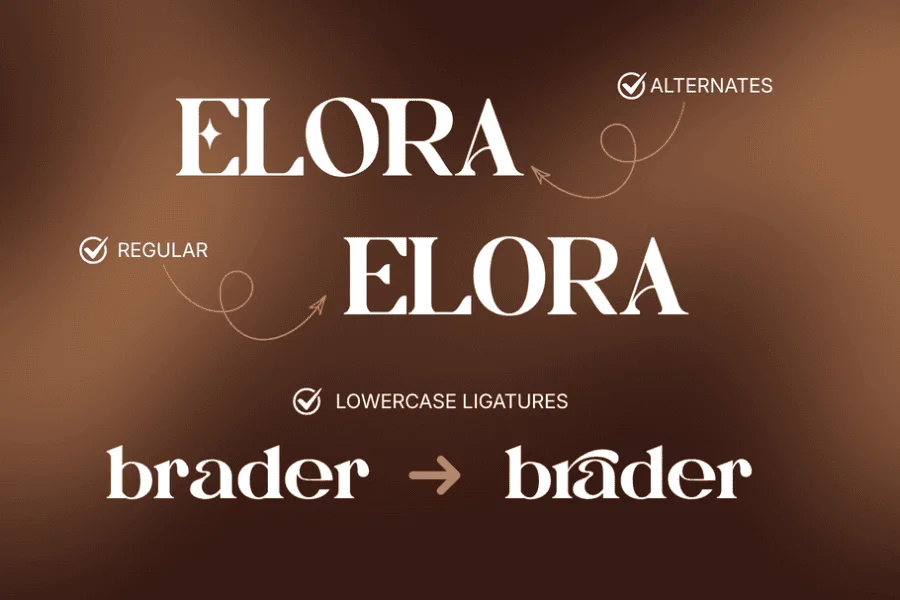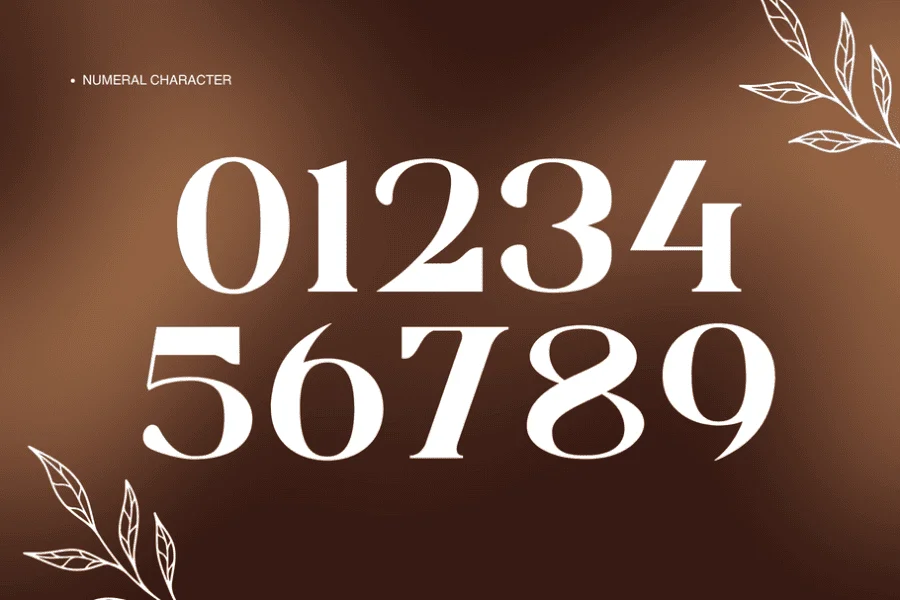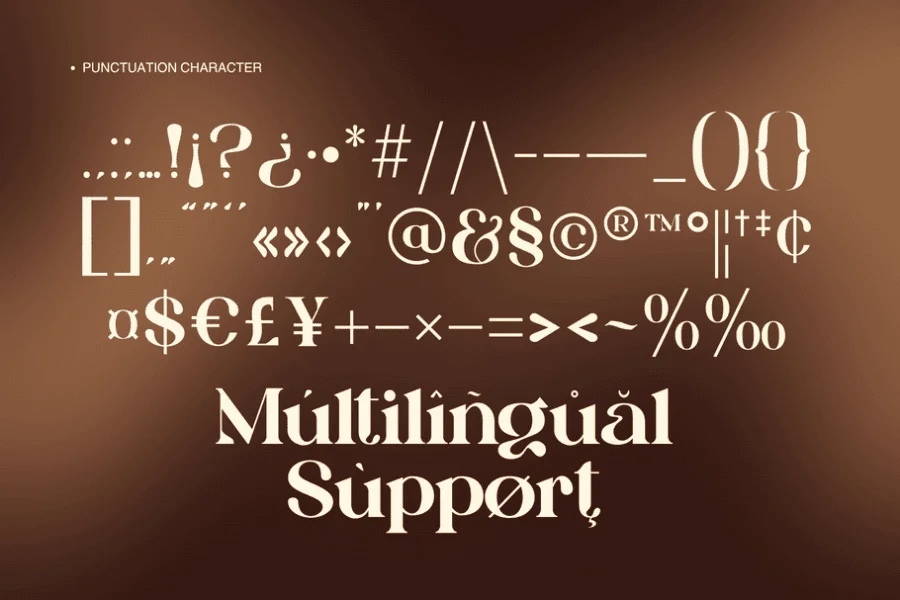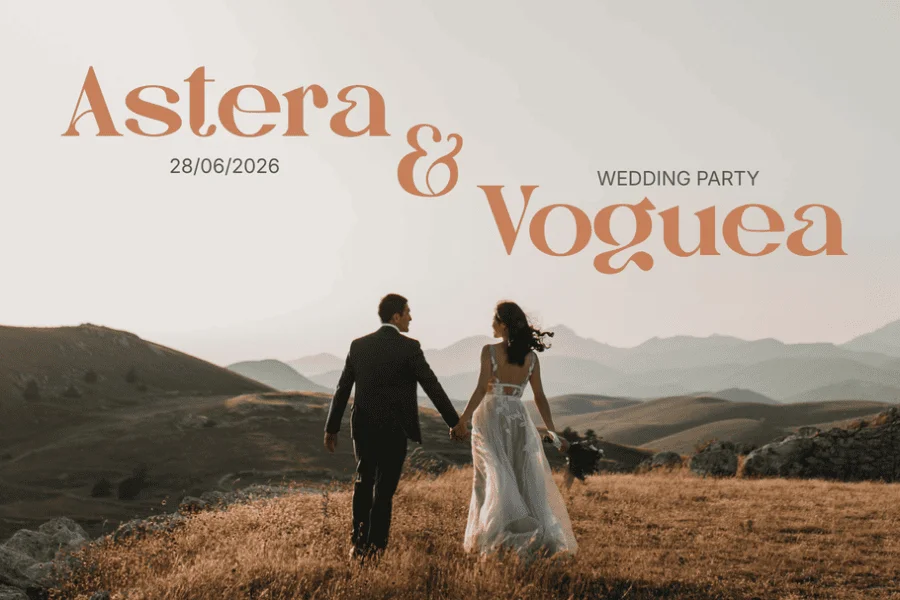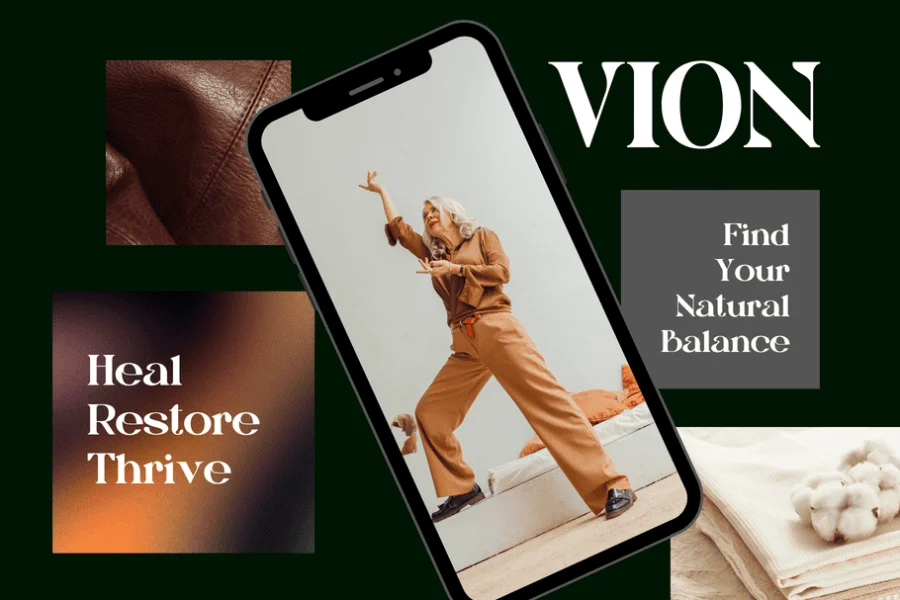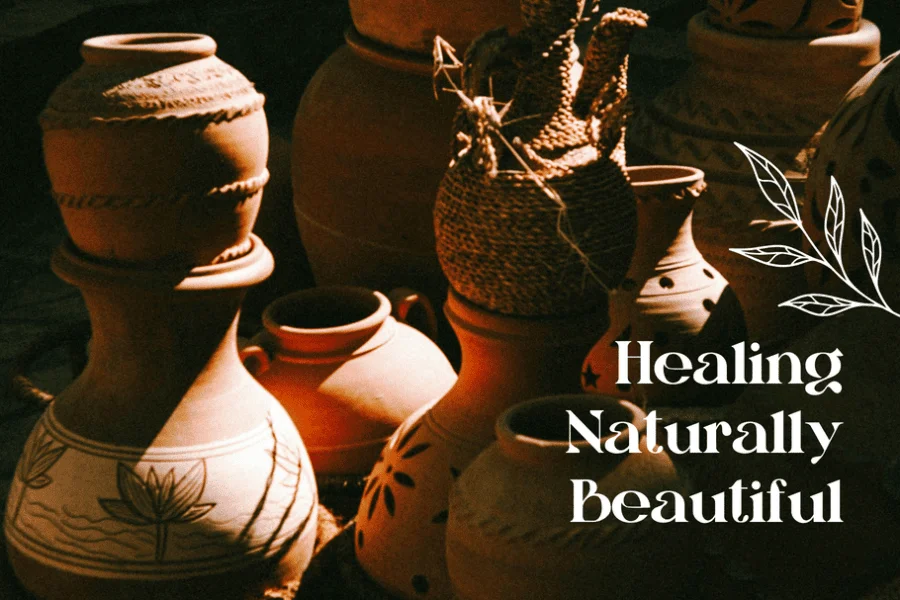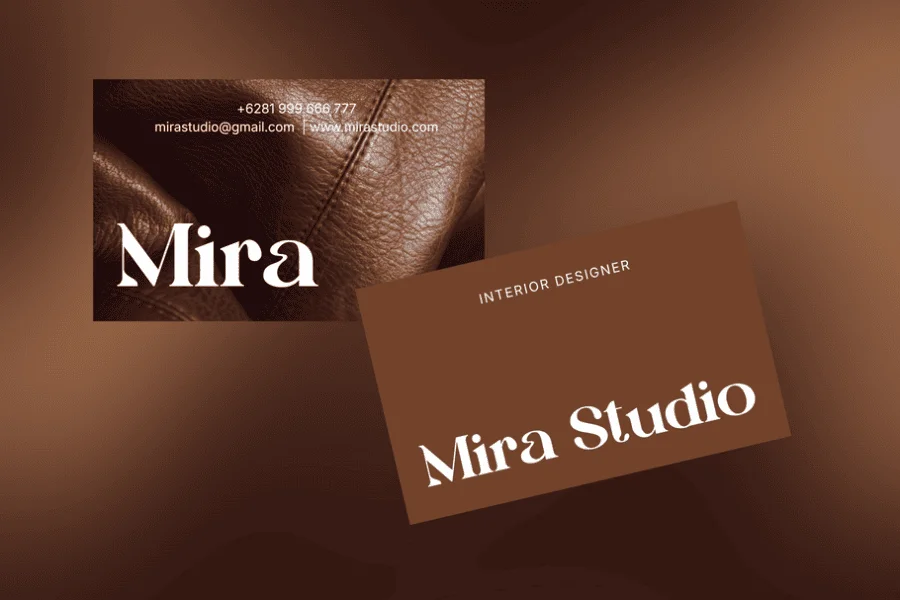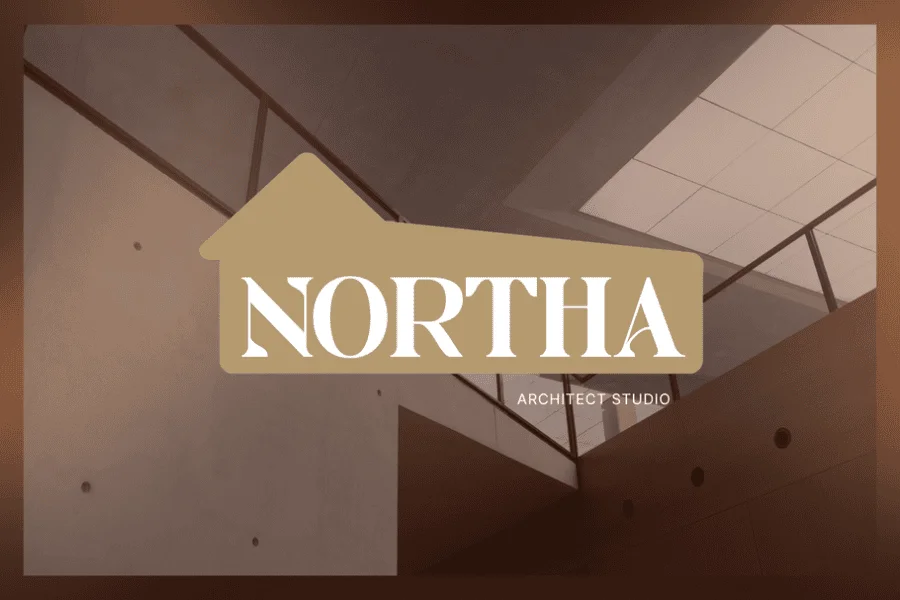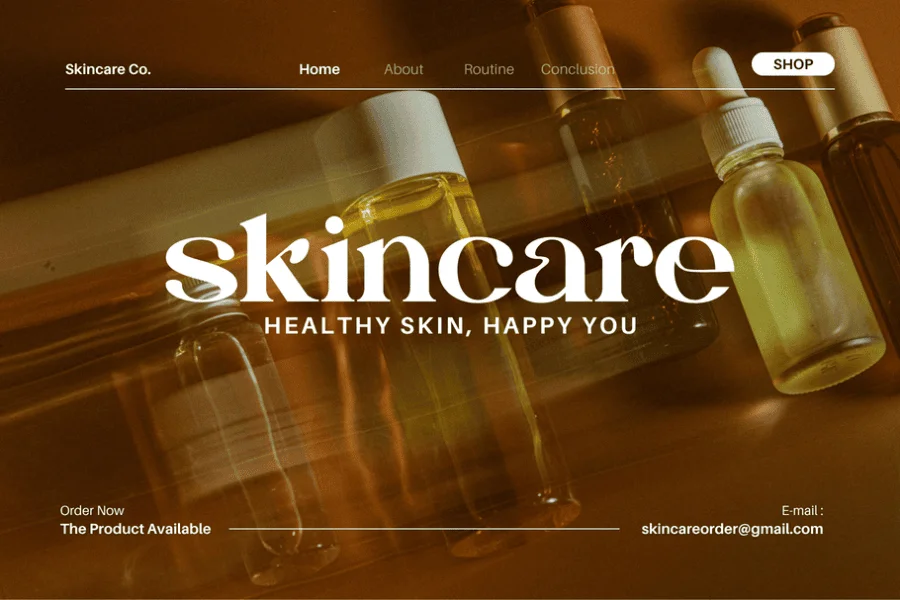
Bagku Fashion is a high-contrast, display-oriented serif typeface that balances organic warmth with structured elegance. Its letterforms feature dramatic shifts from robust, sweeping downstrokes to delicate hairline connections, creating a rhythmic, fluid texture. The lowercase letters are defined by sharp wedge serifs and tapered, sweeping hooks that give the typeface a distinct calligraphic yet modern posture. This combination of heavy, voluptuous curves and sharp, precise terminals yields a visual personality that is both luxurious and deeply expressive.
Designed for high-visibility editorial and lifestyle branding, this typeface is exceptionally suited for boutique artisanal packaging, wellness branding, and upscale web design. The inherent sophistication of its letterforms makes it a natural choice for fashion mastheads, luxury cosmetic labels, and elegant wedding stationery, where its expressive ligatures and stylish alternate characters can command attention on both printed materials and digital interfaces.
Bagku Fashion by Illushvara Design,